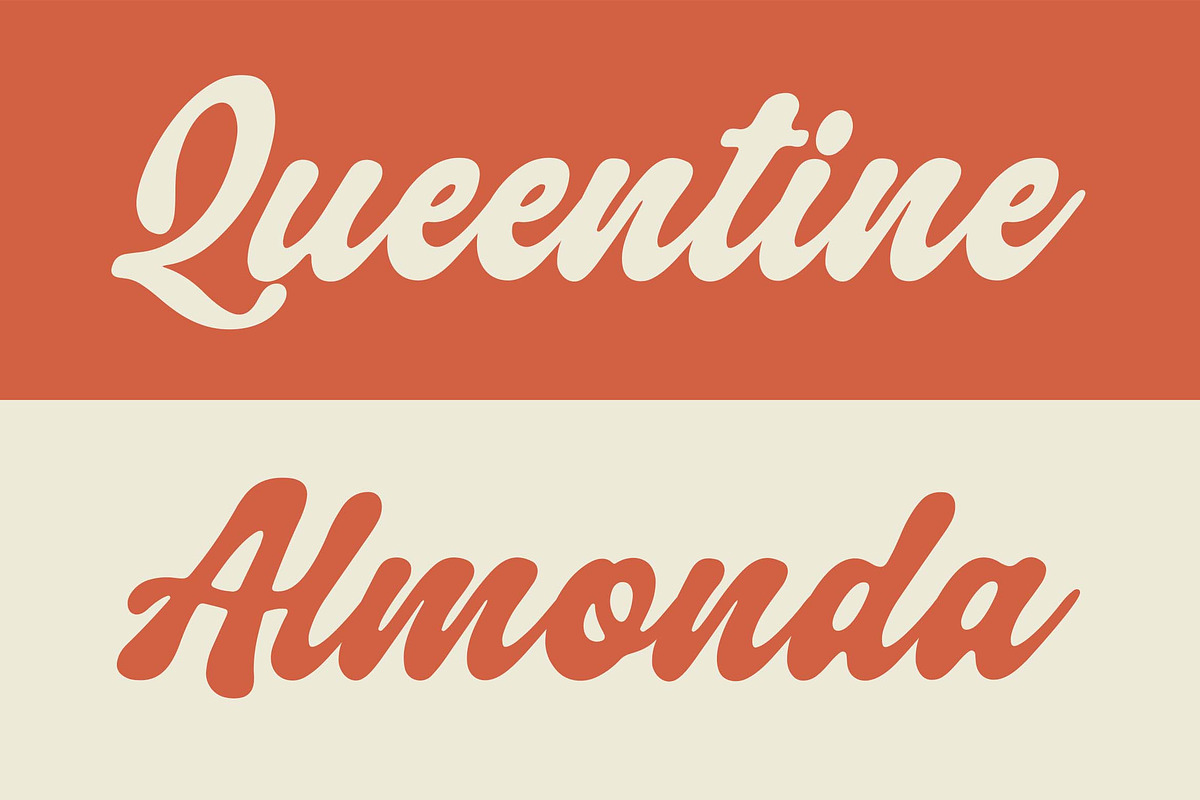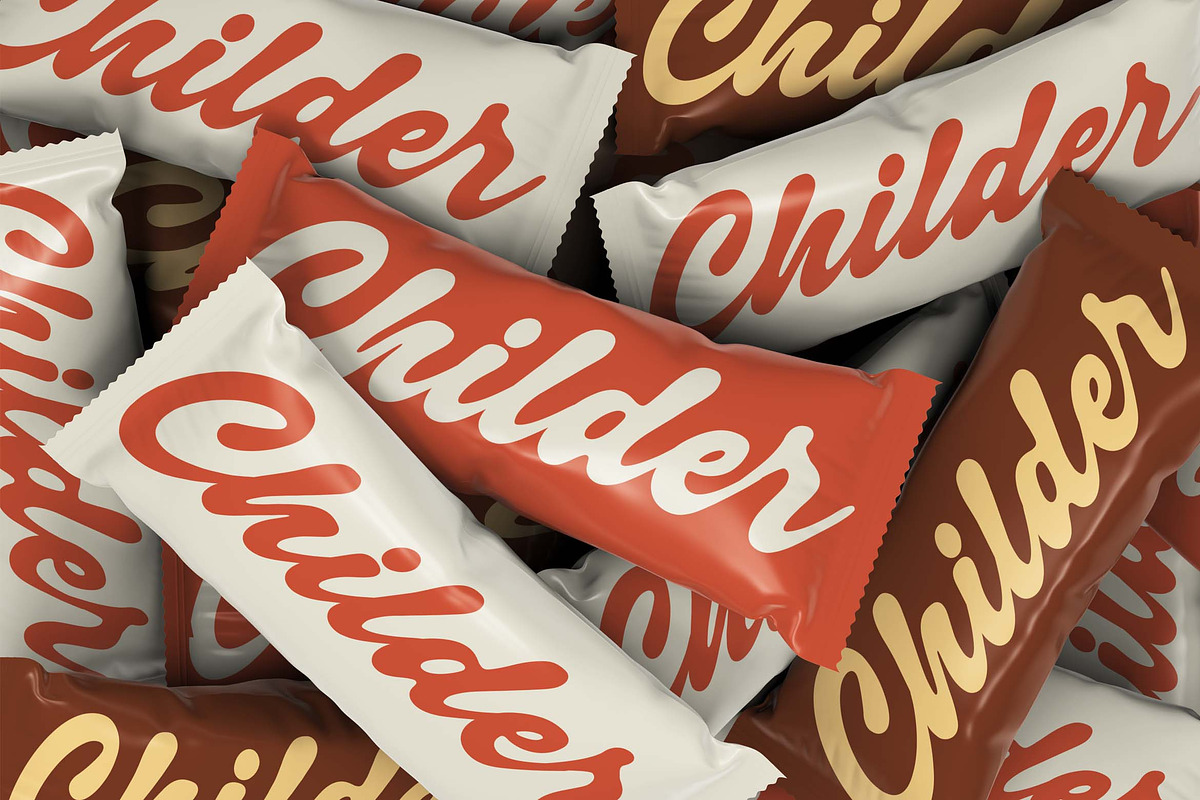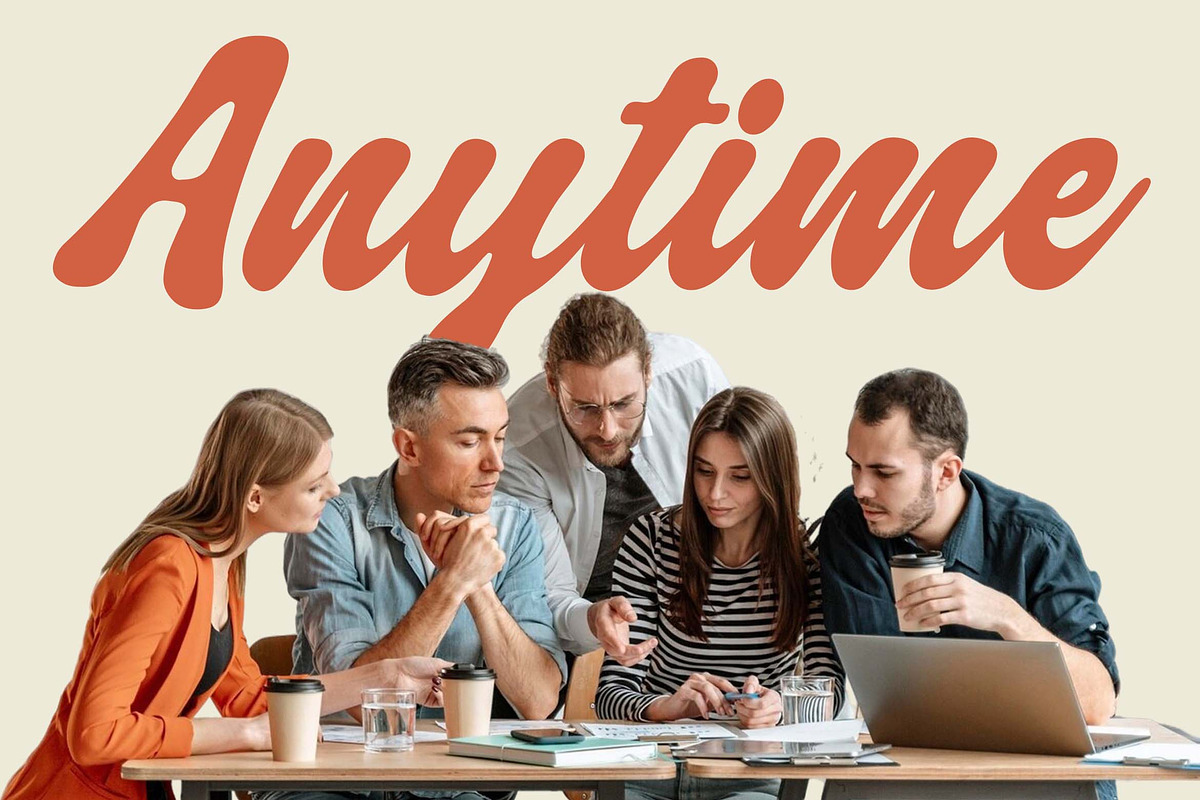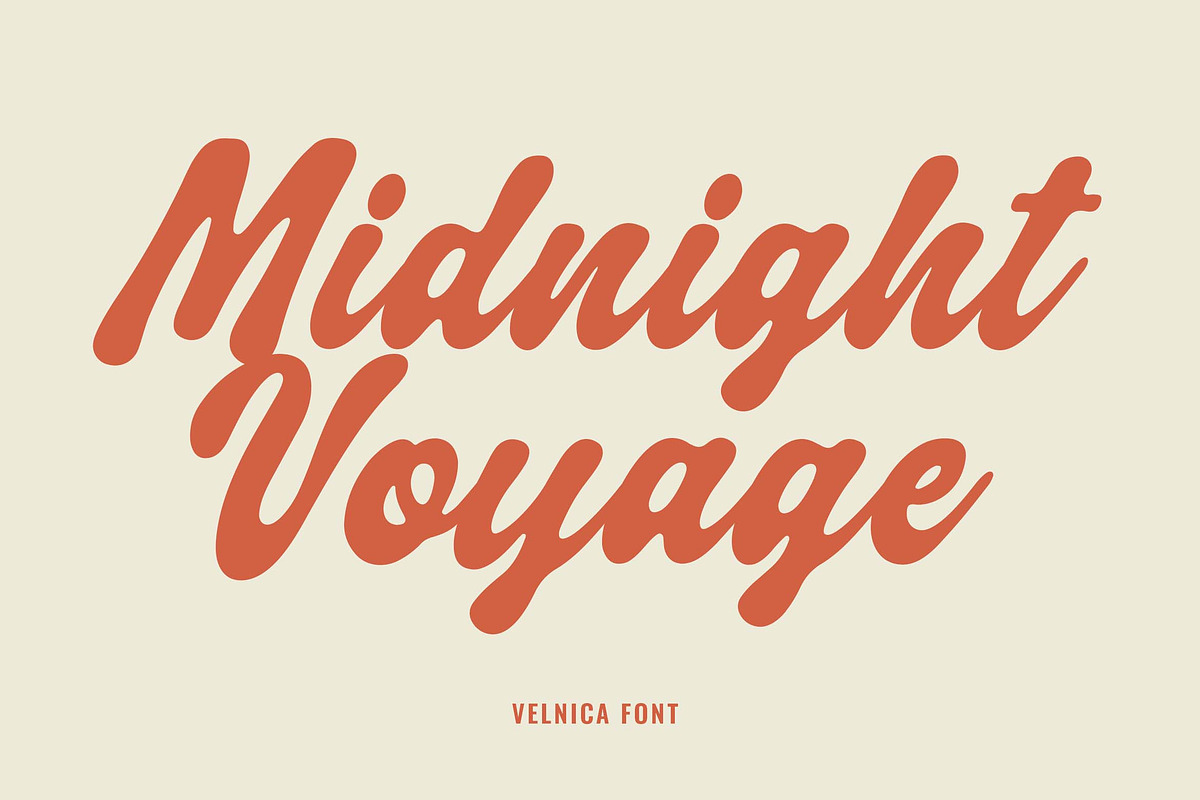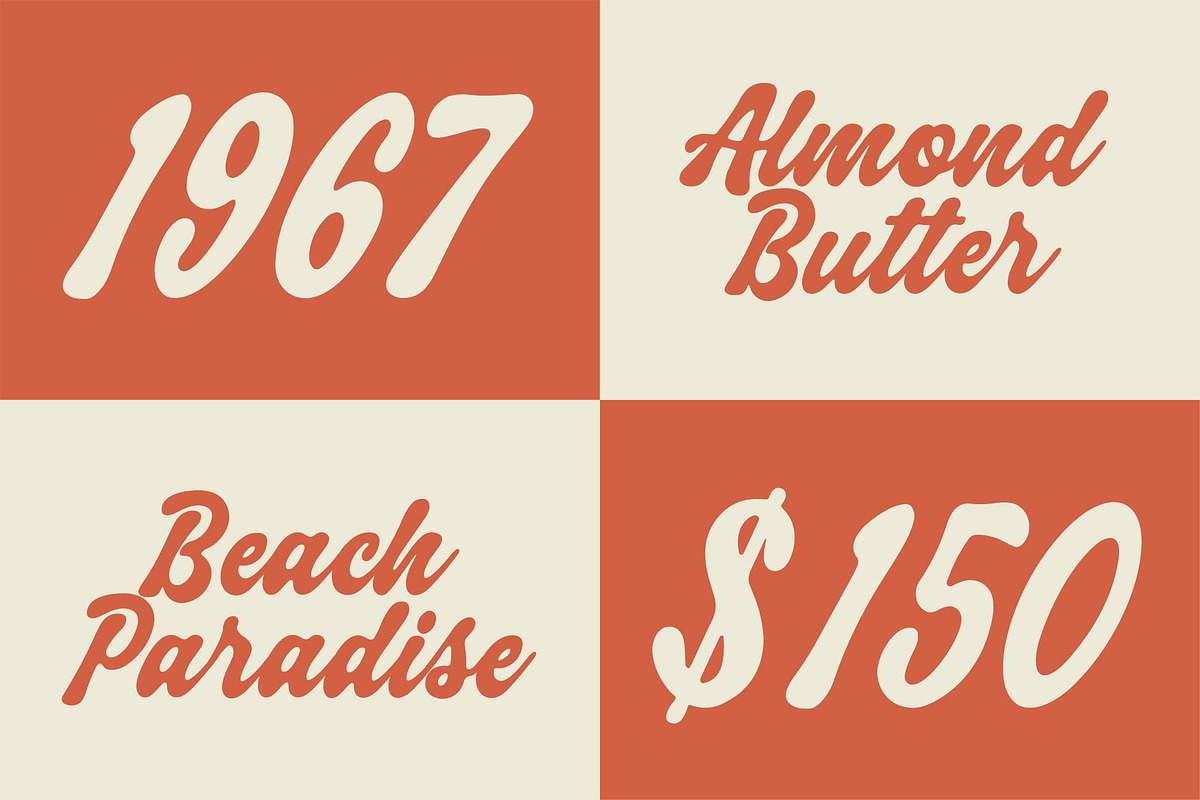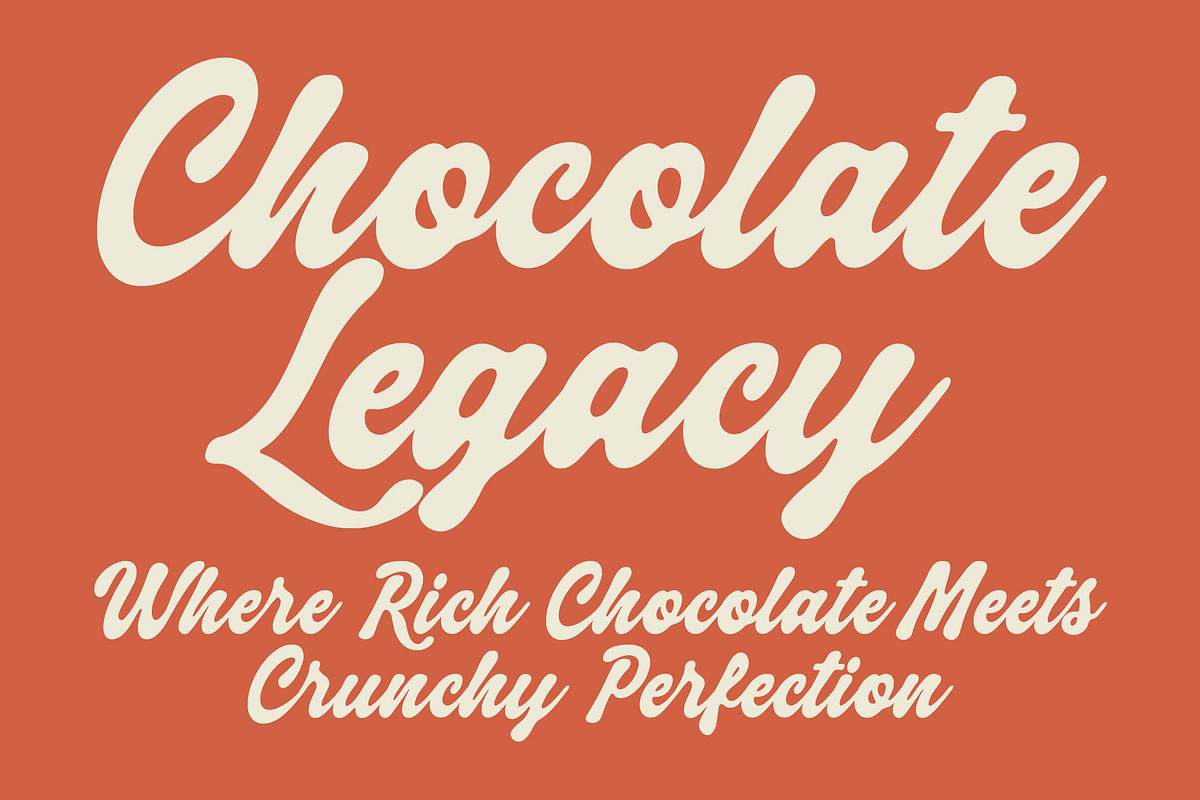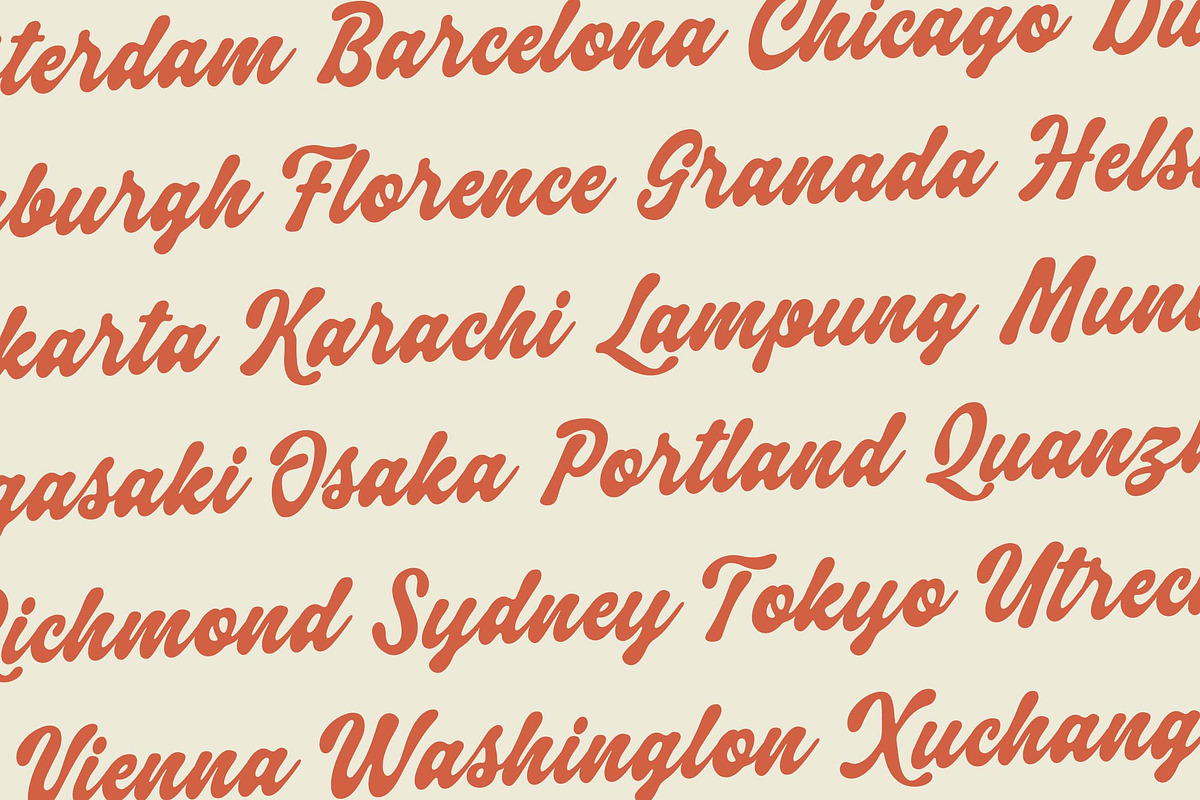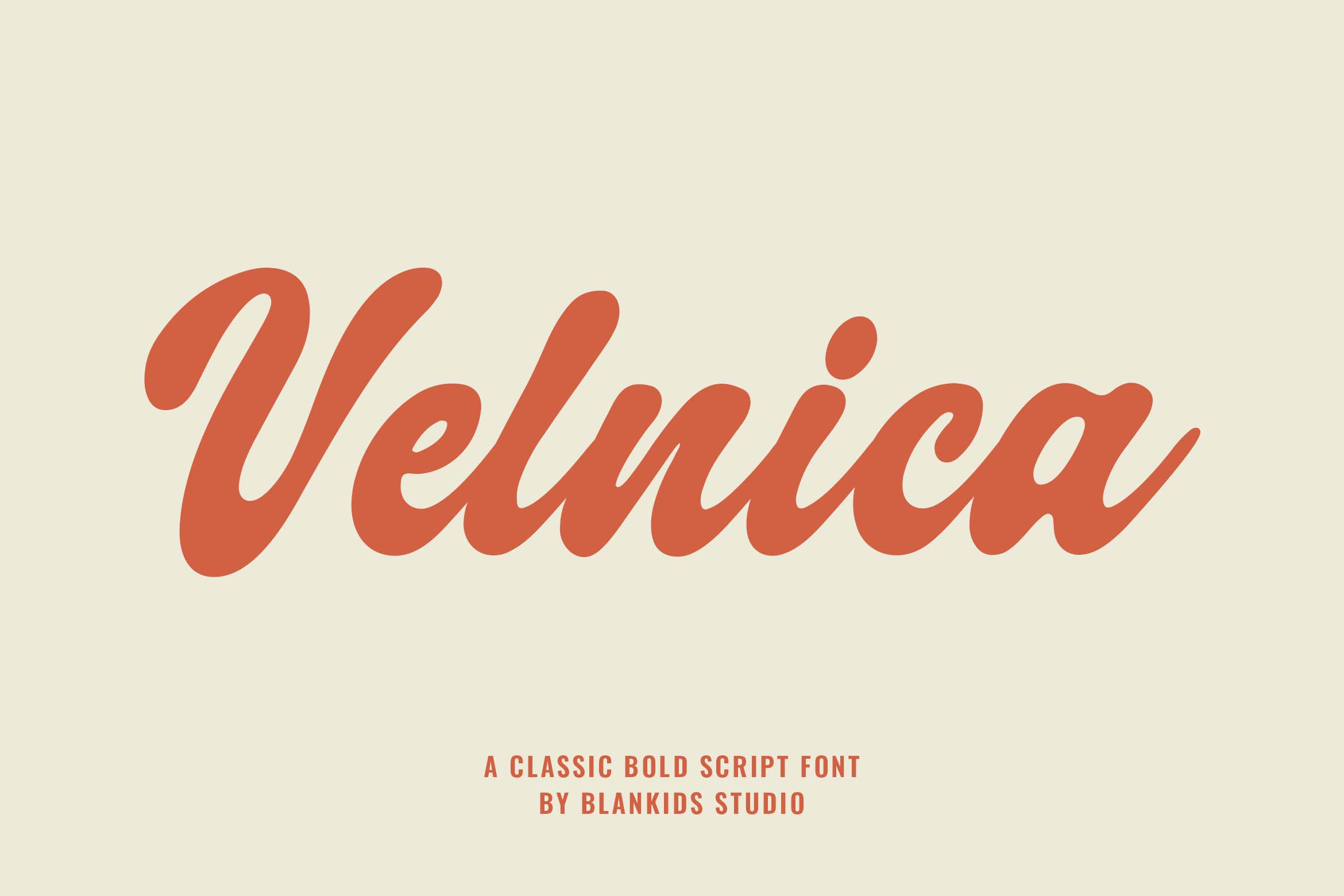
Velnica a Classic Bold Script Font
Velnica is a classic bold script font that blends smooth curves with a confident retro attitude. Designed for creators who want a warm, handcrafted feel, Velnica brings a perfect balance of boldness, elegance, and vintage charm to any project.
Velnica is ideal for branding, logo design, headline lettering, product packaging, social media posts, merchandise, and advertising visuals. Every letter is crafted to look natural and expressive, making your typography stand out effortlessly.
Velnica also includes smooth connections and clean forms, ensuring a professional look whether used in big headlines or detailed design composition
If you’re looking for a bold script font with a timeless handwritten touch, Velnica is the perfect choice to elevate your visual identity.